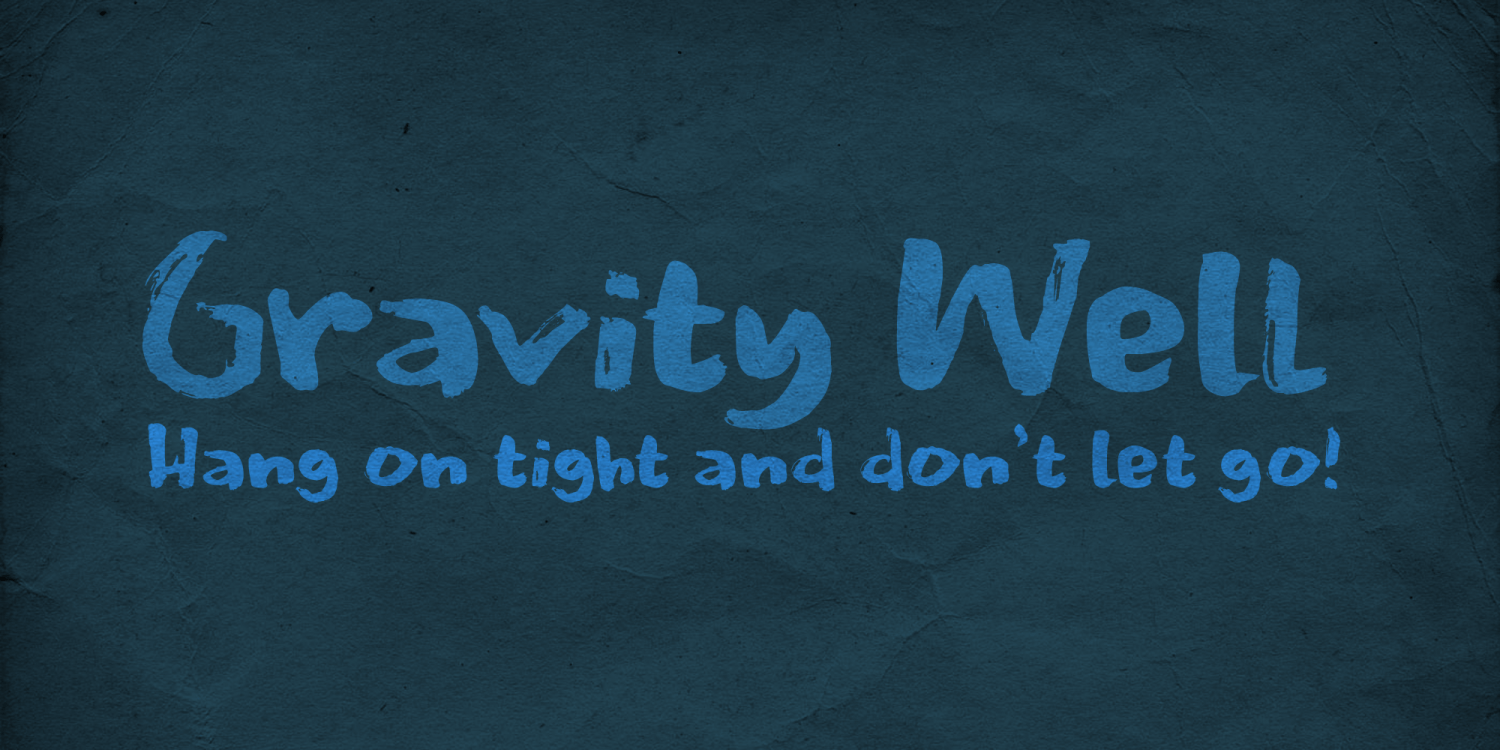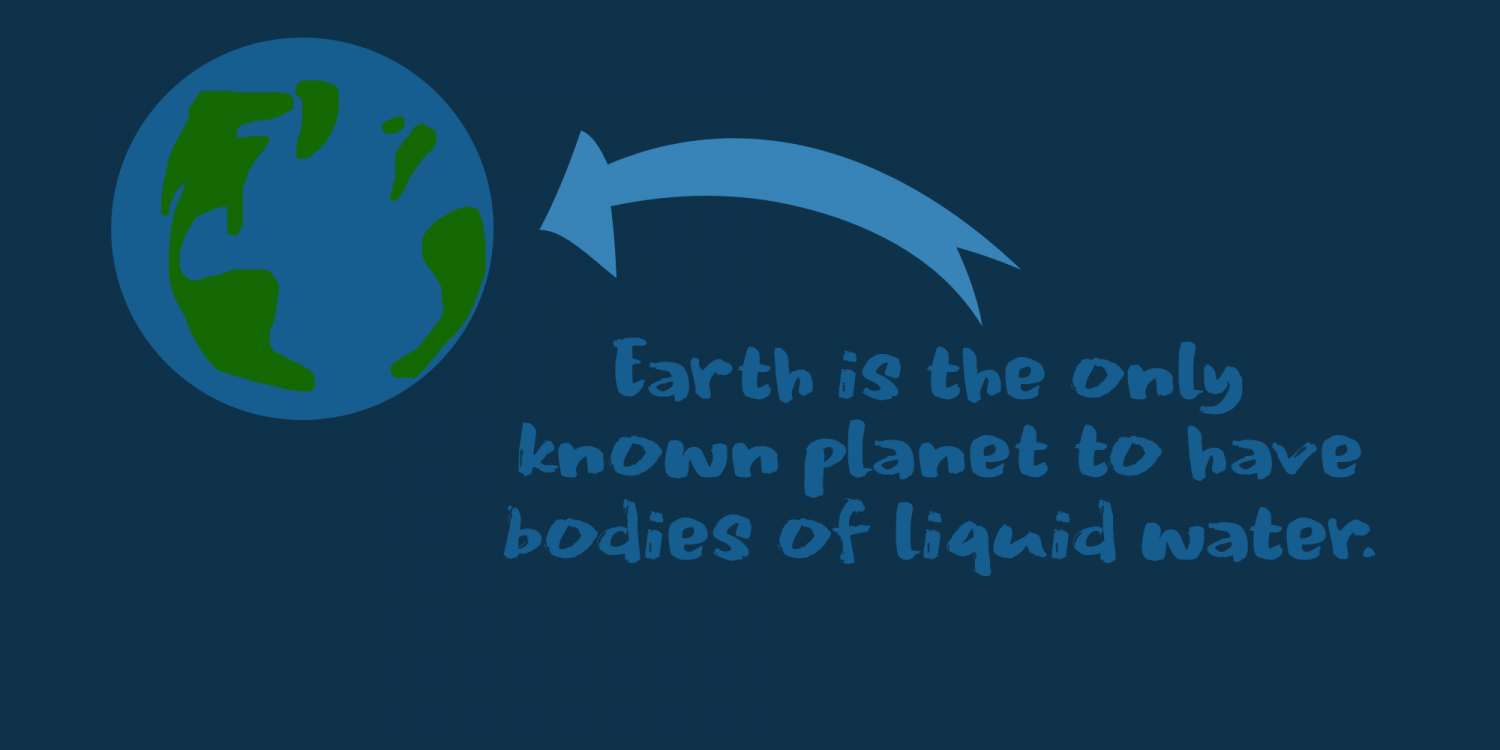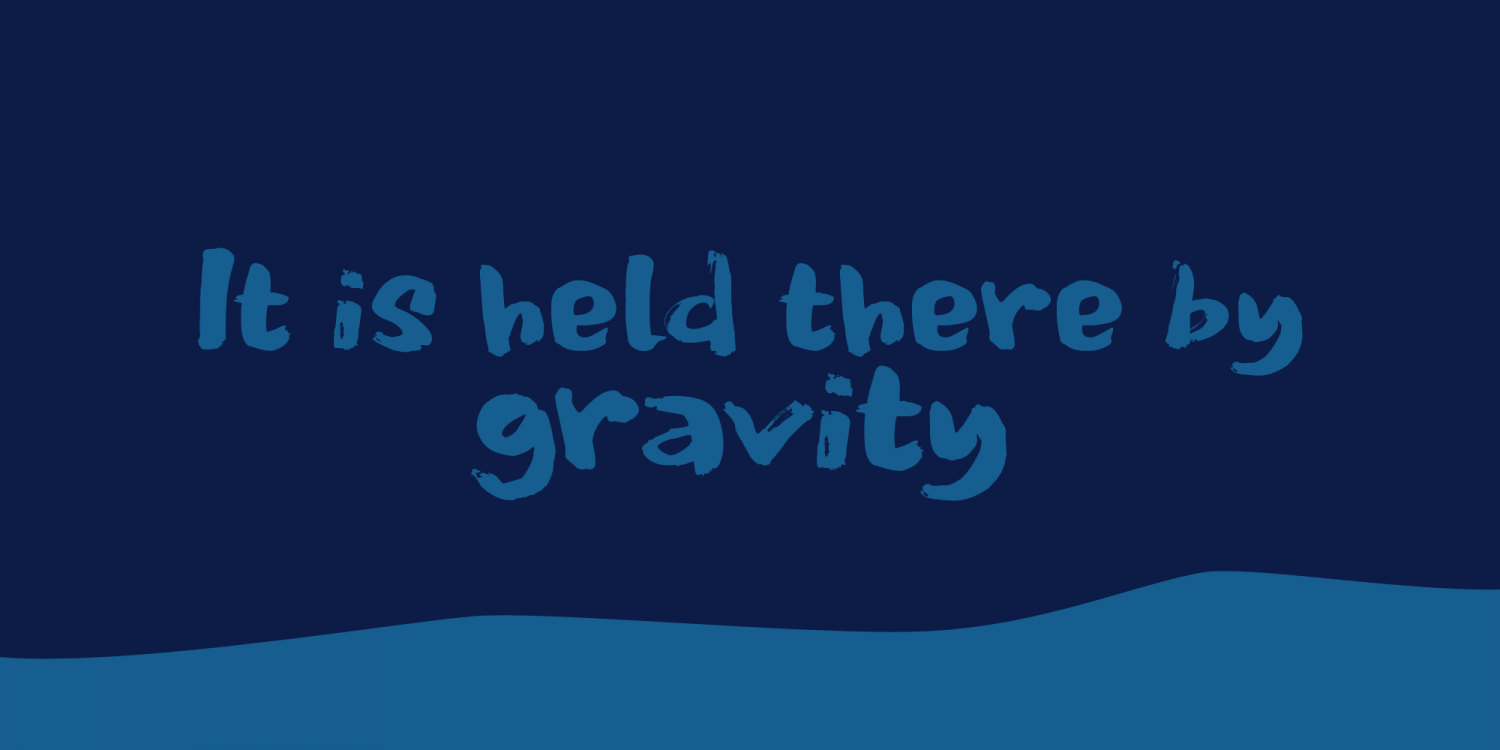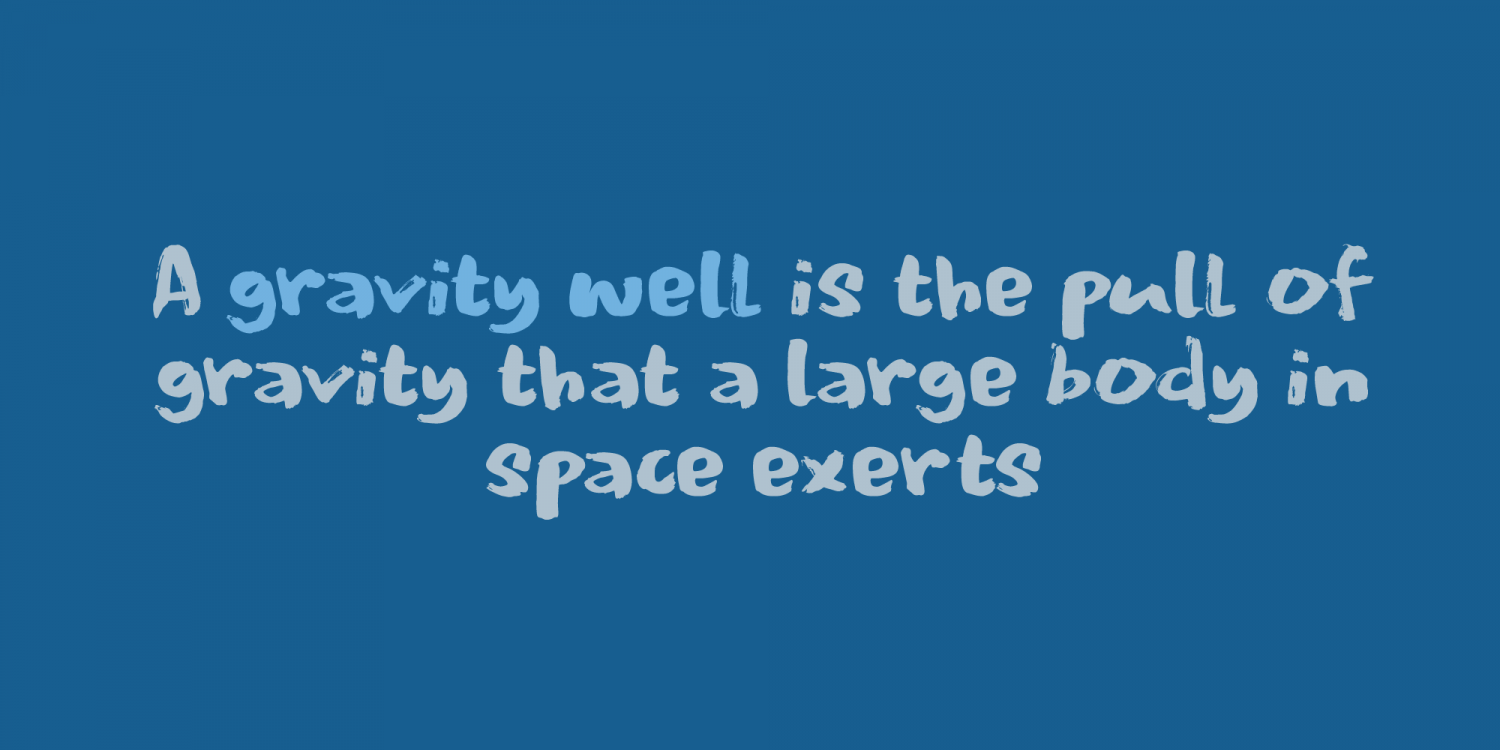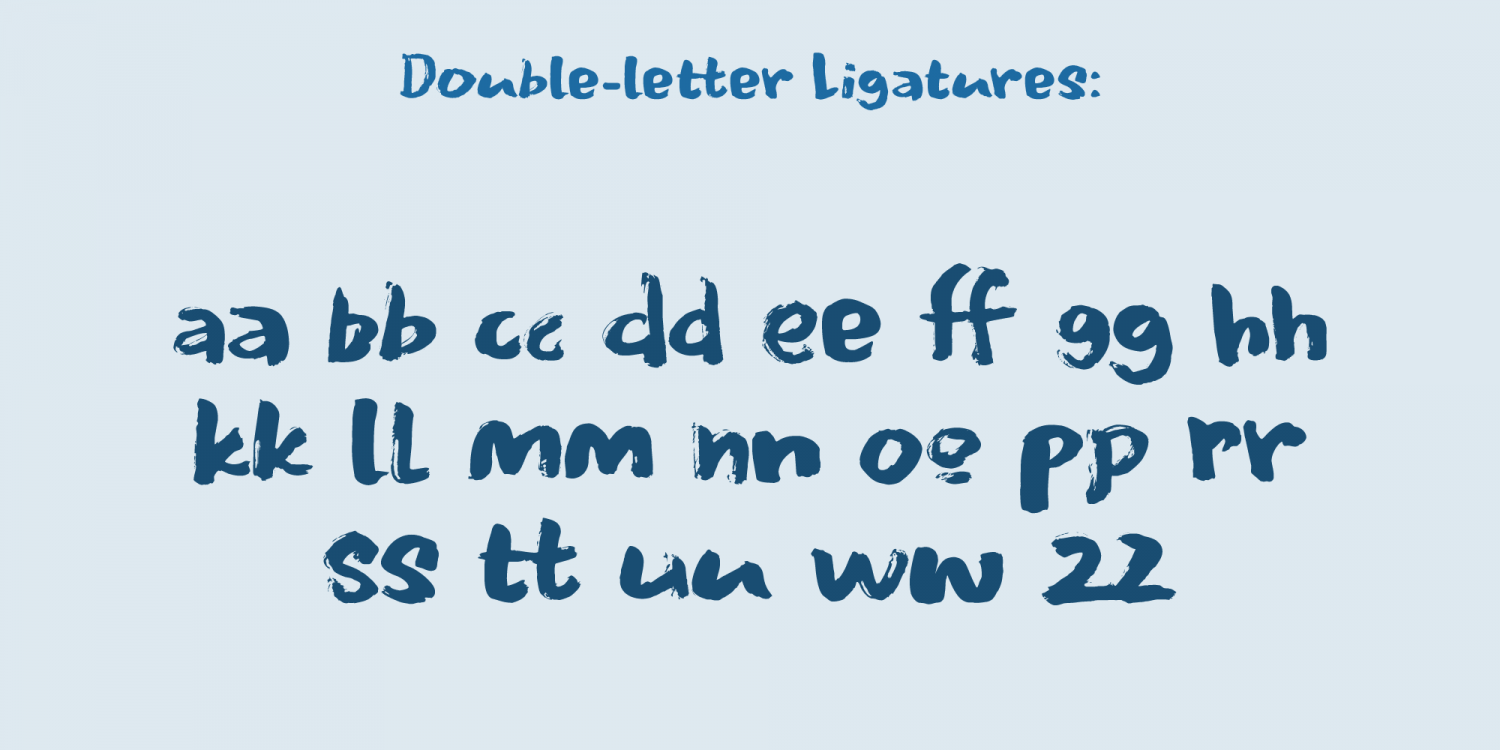
Gravity Well
I seem to be in my astronomical phase right now. I recently released several fonts with names relating to space! Don't worry, it is just a phase and this too will pass? Gravity Well is a handmade brush font, ideally suited for product packaging or book covers. Gravity Well comes with all the diacritics you can ask for and a set of double letter ligatures to boot!